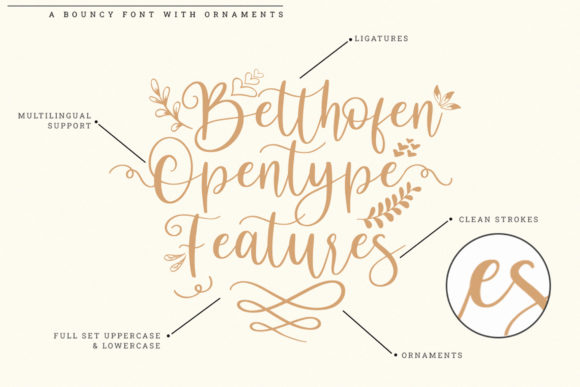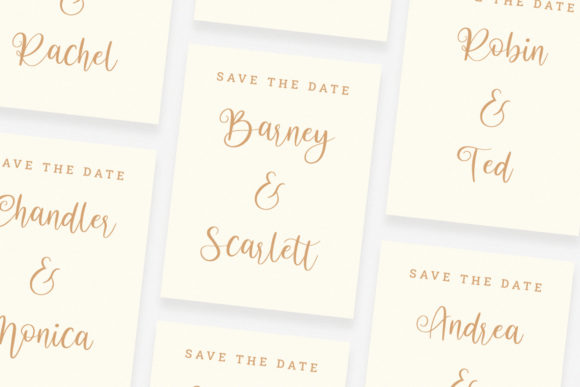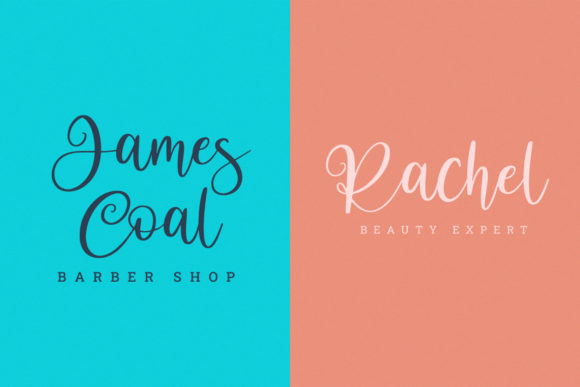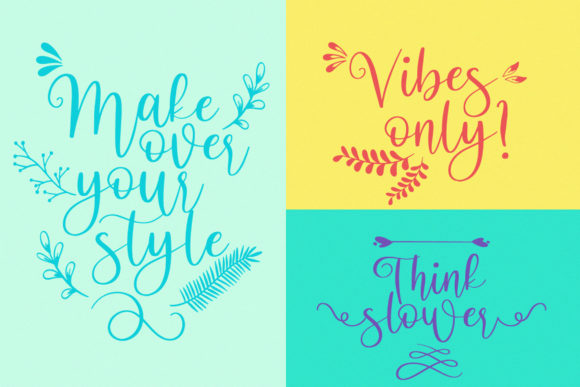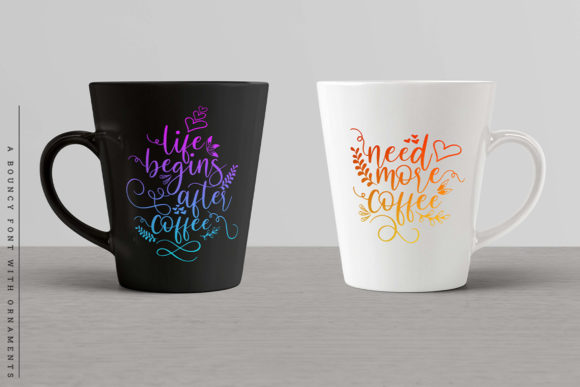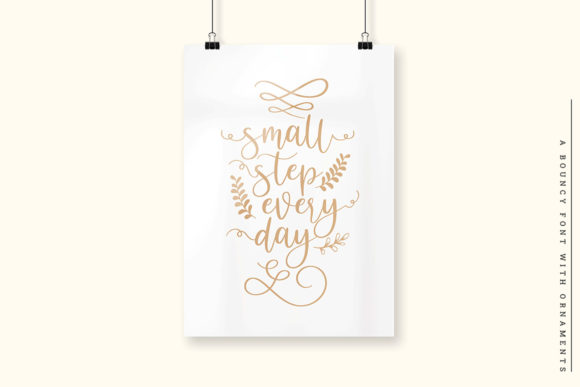
Introducing Betthofen Font: A Romantic and Sweet Calligraphy Typeface
Are you a designer or crafter looking for a unique and elegant font to add a touch of romance and sweetness to your projects? Look no further than Betthofen Font, a beautiful calligraphy typeface that is sure to capture your heart. In this article, we’ll take a closer look at the features and benefits of Betthofen Font, and explore how it can elevate your designs and crafts to the next level.
What is Betthofen Font?
Betthofen Font is a romantic and sweet calligraphy typeface that is designed to add a touch of elegance and sophistication to your projects. With its flowing lines and dancing characters, this font is perfect for creating beautiful and eye-catching designs that are sure to stand out. Whether you’re working on a wedding invitation, a branding project, or a craft tutorial, Betthofen Font is the perfect choice.
Key Features of Betthofen Font
So, what makes Betthofen Font so special? Here are just a few of its key features:
- PUA Encoding: Betthofen Font is PUA (Private Use Area) encoded, which means that you can access all of the amazing glyphs and ligatures with ease. This makes it easy to create beautiful and intricate designs without having to worry about complicated coding or technical issues.
- Dancing Characters: The characters in Betthofen Font dance along the baseline, creating a sense of movement and energy. This adds a playful and whimsical touch to your designs, making them more engaging and eye-catching.
- : Betthofen Font has a romantic and sweet feel that’s perfect for creating designs that are elegant, sophisticated, and feminine.
Benefits of Using Betthofen Font
So, why should you choose Betthofen Font for your next project? Here are just a few of the benefits of using this beautiful font:
- Elegance and Sophistication: Betthofen Font adds a touch of elegance and sophistication to your designs, making them perfect for high-end branding projects, wedding invitations, and other special occasions.
- Versatility: Betthofen Font is versatile and can be used for a wide range of projects, from digital designs to print materials.
How to Use Betthofen Font
Using Betthofen Font is easy! Here are a few tips to get you started:
- Pair it with Other Fonts: Betthofen Font looks beautiful when paired with other fonts, such as sans-serif fonts or script fonts. Experiment with different pairings to find the one that works best for your project.
- Experiment with Colors: Betthofen Font looks stunning in a range of colors, from soft pastels to rich jewel tones. Experiment with different colors to find the one that works best for your project.
- Use it for Headings and Titles: Betthofen Font is perfect for headings and titles, where its elegant and sophisticated feel can really shine.